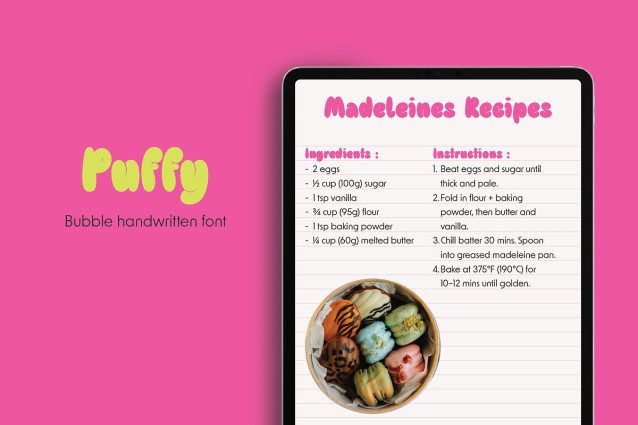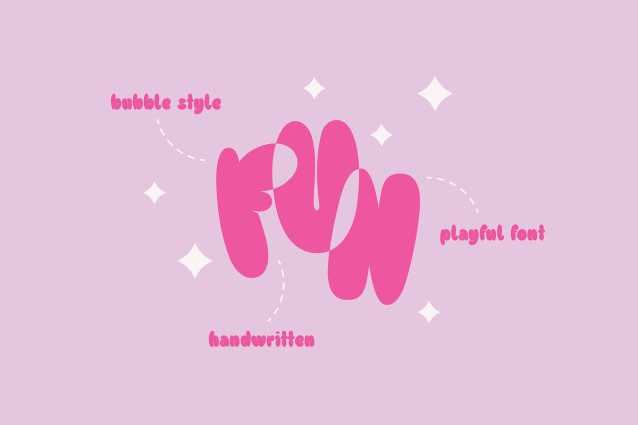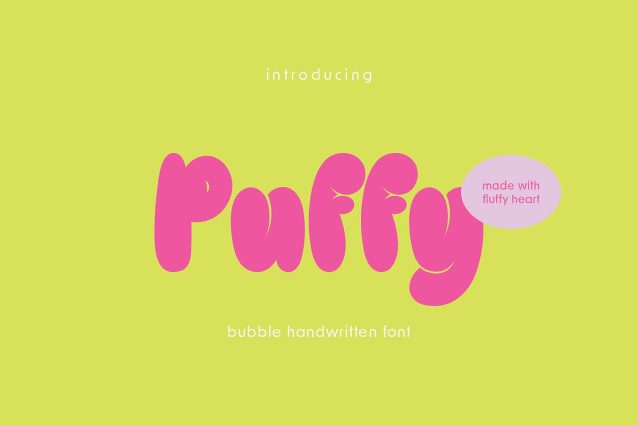
PGR Puffy Font
PGR Puffy Font, bubbly font that’s as fluffy as a cloud! With its rounded, thick letters, Puffy is the perfect choice for adding a touch of playful and fun to your designs